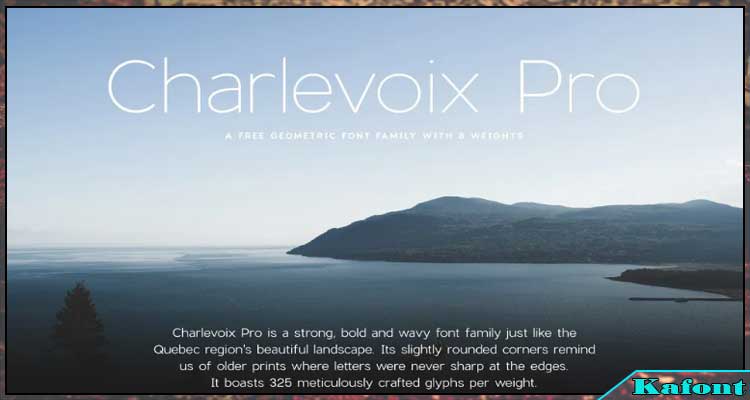
Charlevoix Pro Sans Serif Font Family Free is a stunning font style for display purposes. It comes with various glyphs per weight.
This is one of the most beautiful display typefaces taking inspiration from an area in Quebec. When you look at its strong and bold strokes, the font may remind you of hills and mountains in Charlevoix. Not only that, but it also comes in a good flow that also makes you remember the Saint-Laurent river. The special thing about the font is that all of its glyphs per weight are carefully crafted.
Charlevoix Pro Font
The Charlevoix Pro font family is a versatile and elegant typeface designed by Connary Fagen. It is known for its refined and sophisticated appearance, making it suitable for a variety of design applications.
Charlevoix Pro offers a range of weights and styles, including regular, italic, bold, and bold italic variations. This variety allows designers to create dynamic typographic compositions with a harmonious visual hierarchy.
With its clean lines, balanced proportions, and excellent legibility, Charlevoix Pro is well-suited for projects such as branding, editorial design, web design, signage, and more. Its timeless appeal and versatility make it suitable for both display and text use.
One of the highlights of the Charlevoix Pro font family is its extensive character set and language support, making it suitable for international projects. Additionally, it may include features like ligatures, alternate characters, and stylistic sets, providing designers with additional customization options.
Overall, Charlevoix Pro is a sophisticated and stylish font family that offers a modern yet classic typographic solution for a wide range of design projects. Its elegant design and versatility make it a popular choice among designers seeking to create refined and memorable typography.